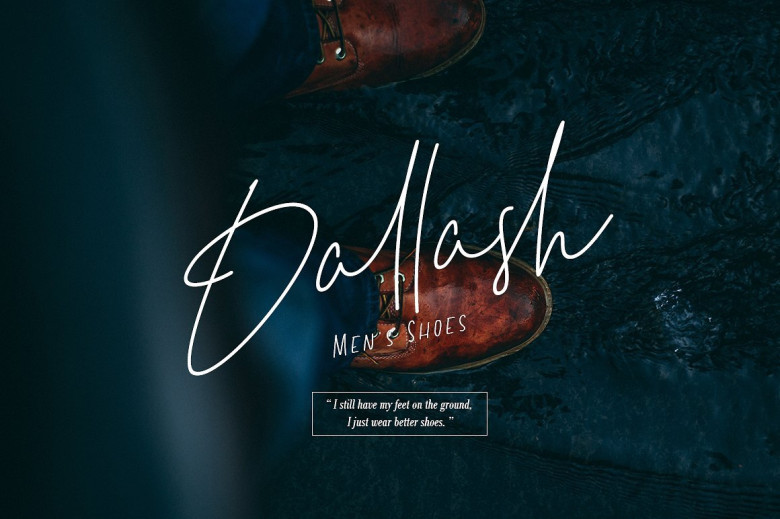
Tiffany Handwritten Font
A luxury signature font, is a stunningly beautiful handwritten font for luxury, it is handmade precisely adding a finest touch of perfection and aesthetics at it’s level best. Introducing Tiffany Font! “Tiffany” is a font with natural representation as a handwritten construction, featuring a straightforward, simple, elegant and very beautiful character. We often get a lot of requests to create signature-style logos, while still giving the feel of a real hand letter. That is the forerunner of the idea that gave birth to this font. “Tiffany” is very suitable and charming for use in brand design needs. Where “Tiffany” has 3 variations of style, one of which has the most eccentric character, which complements all your needs to apply each letter of “Tiffany” more broadly and is more powerful in translating the use of creations.